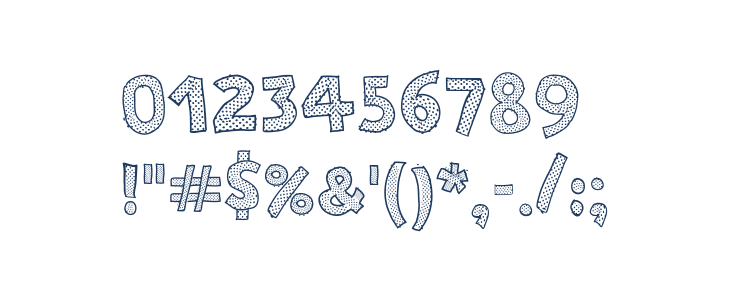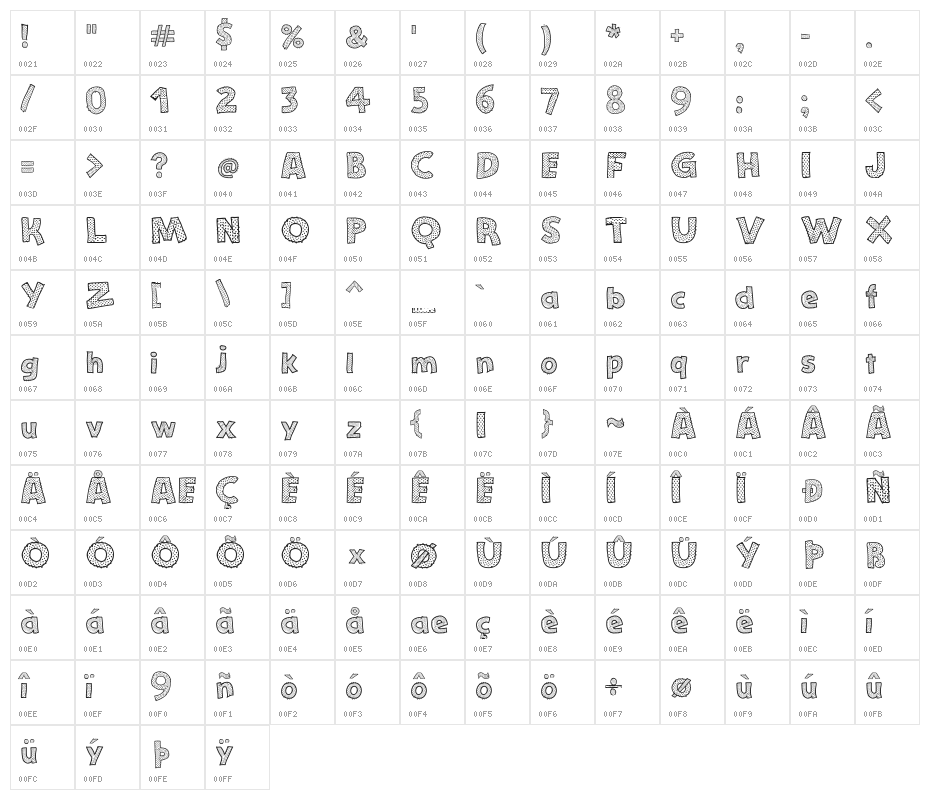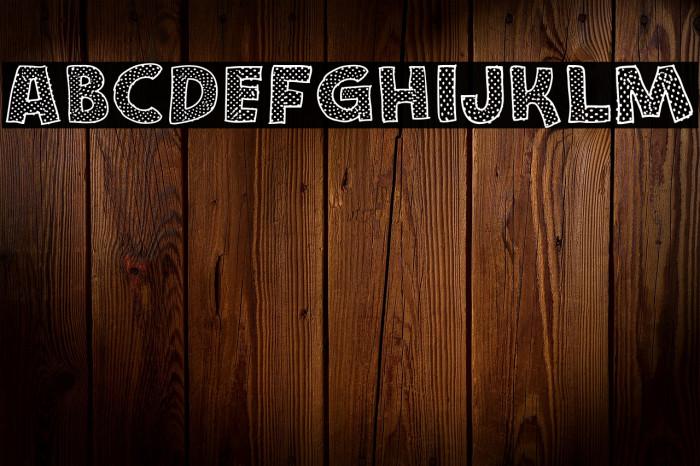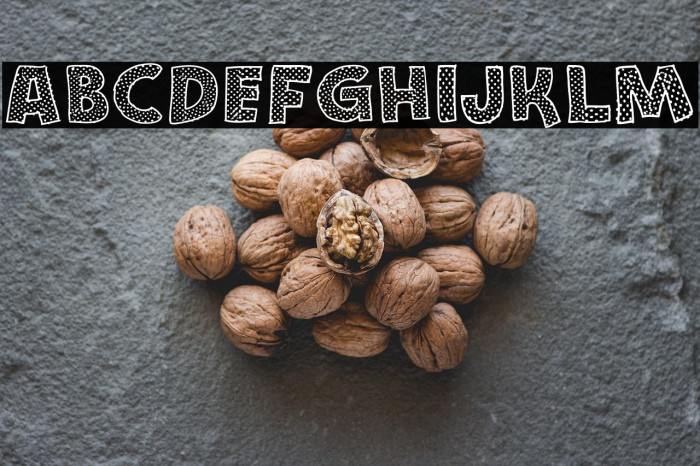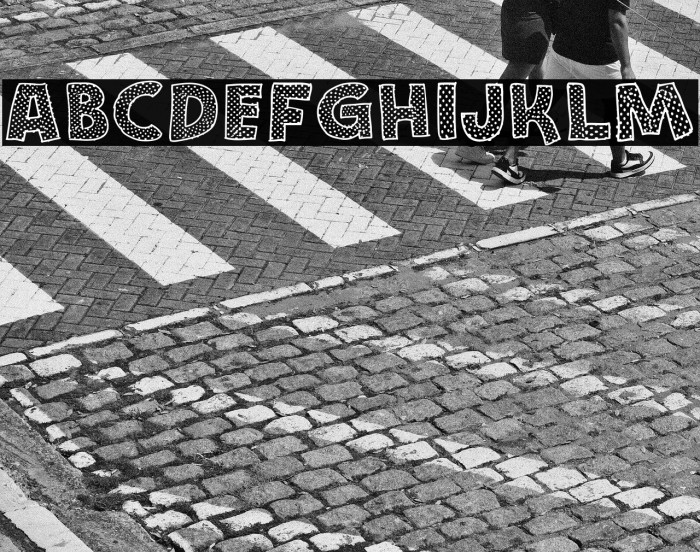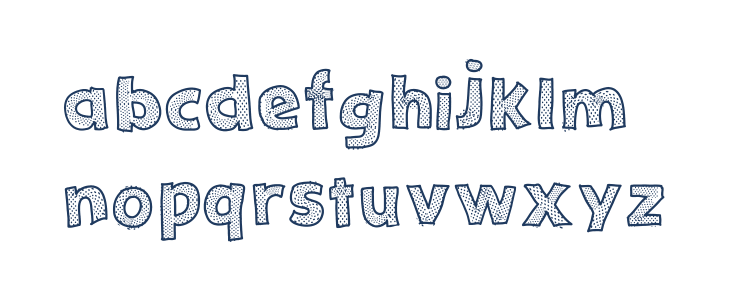
Stefanie Dots Font
Stefanie Dots Description
This playful and eye-catching font features a dotted pattern within each character, giving it a lively and whimsical appearance. The letters are bold and slightly rounded, with a hand-drawn feel that adds a touch of informality and fun. The uppercase and lowercase letters maintain a consistent style, while the numbers and special characters are equally engaging, making this font versatile for various creative projects. The dotted texture adds depth and interest, making it ideal for designs that require a unique and cheerful touch.
| Proposed Projects | Ideal for children's books, comic strips, playful branding, party invitations, and creative posters. |